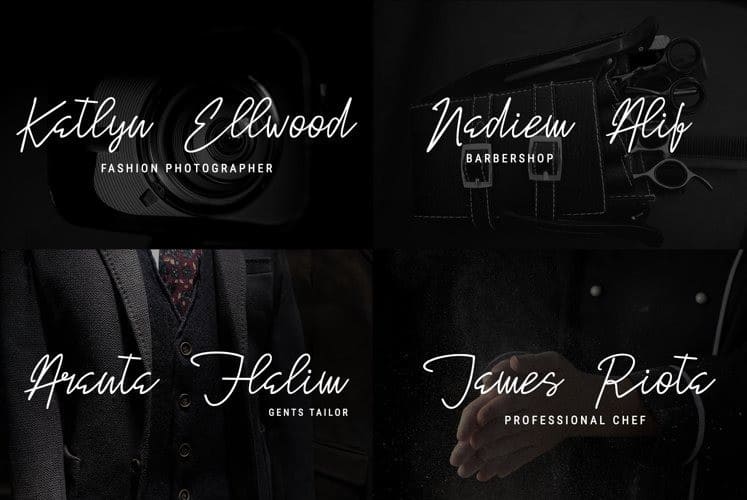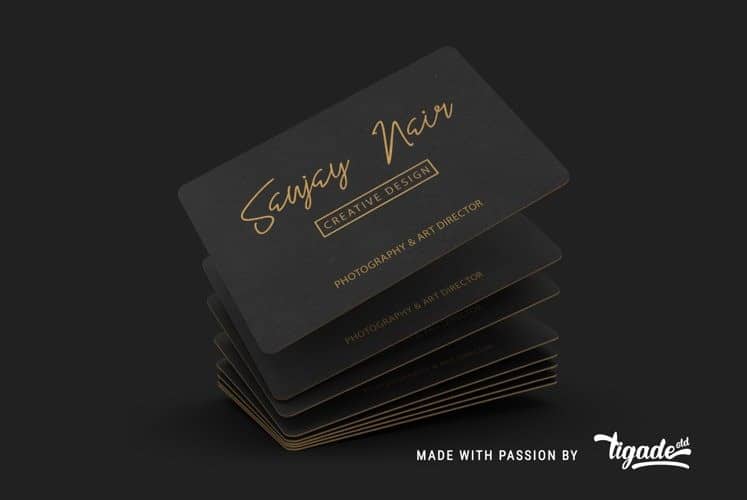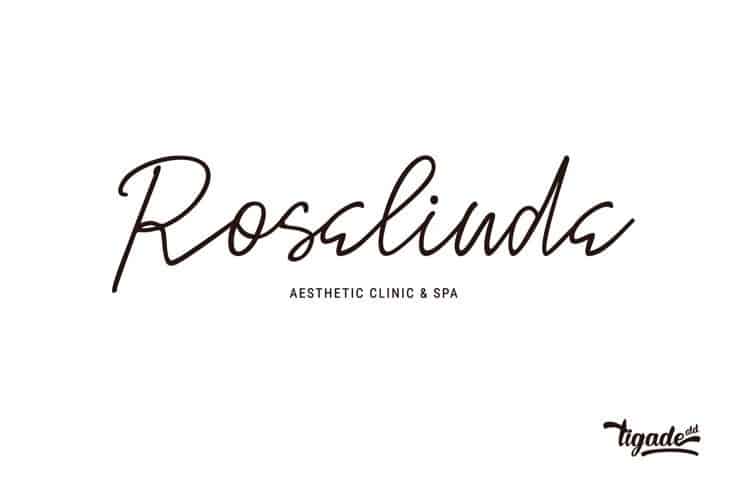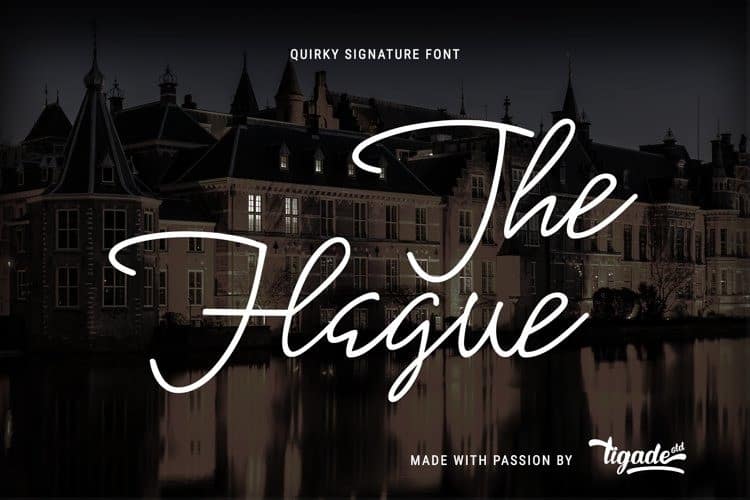
The Hague Handwritten Font
The Hague Handwritten Font is a Monoline Script typeface with elegant signature style. The Justin font has a casual, elegant look, and has a good readability. This is a font from the designer Tigade Std. The Hague is a simple handwritten signature font. It is unique and a bit quirky. However, still show an elegant look and feel. As shown in the Posters, it is suitable for many usage such as branding, logo, business card, etc. With the unique stroke of the font, it will give you more unique touch to your design.